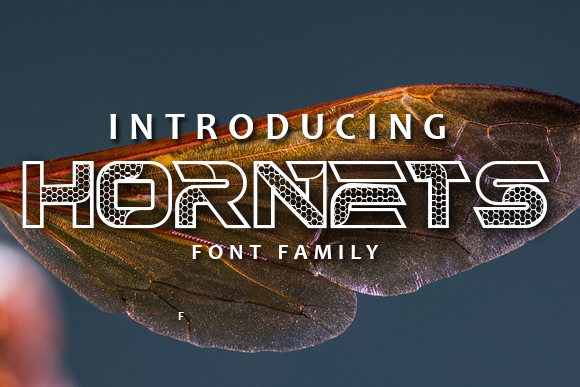
Introducing Hornets Font – An Electrifying Typographic Masterpiece for Captivating Designs
Unleash your creativity with Hornets Font, a mind-bending decorative font that radiates a futuristic and bold aura. Stir curiosity and excitement in your designs with this remarkable font crafted by the talented vladimirnikolic.
Hornets Font is more than just a collection of characters; it's an expression of creativity and innovation. Its unique structure and striking letterforms dance off the page, demanding attention and engraving themselves into the viewer's memory. Whether you're designing logos, posters, social media graphics, or any other visual masterpiece, Hornets Font is the perfect weapon in your arsenal.
Dive into a world of endless possibilities with Hornets Font. Its versatility knows no bounds, effortlessly transcending genres and styles. Whether you're designing for a high-tech corporation or a whimsical art project, Hornets Font seamlessly blends with your vision, adding a touch of sophisticated modernity.
Say goodbye to bland and forgettable typography. Hornets Font is here to inject life and personality into your designs. Its carefully crafted lines and curves evoke a sense of movement and energy that draws the viewer's eye and keeps them engaged. Let your creativity soar as you craft captivating designs that speak volumes.
Don't miss this chance to revolutionize your visual creations. Hornets Font is not just a font; it's an experience that will transform the way you approach design. Its endless variations and adaptability ensure that your designs will always stay fresh and captivating.
Join the league of creative visionaries who have embraced Hornets Font and witnessed the transformation of their designs. Let your imagination run wild and create masterpieces that leave a lasting impression. Hornets Font is the key to unlocking your creative potential and unleashing a world of visual wonders.